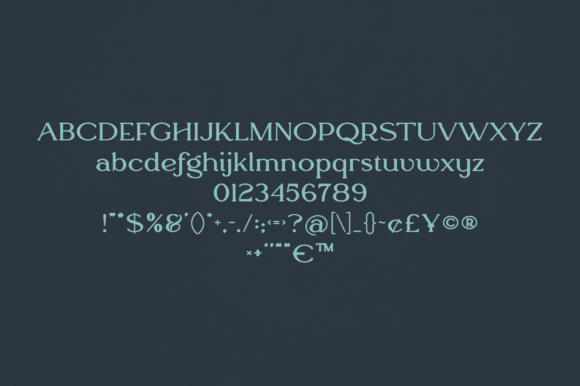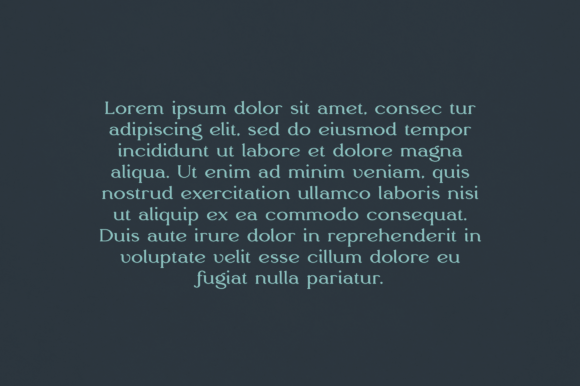
Introduction to Kai Font
Imagine you’re brainstorming ideas for a new branding project, and you stumble upon the perfect combination of elegance and sophistication. The words start flowing, and your creative juices are in overdrive. You envision a stunning logo, a beautifully crafted website, or a captivating social media post – and the right font is the missing piece of the puzzle. That’s where Kai Font comes in – a stylish and versatile serif font that will elevate your typography to new heights.
As a designer, you’re always on the lookout for the perfect design resource to give your projects a unique touch. Kai Font is more than just a font – it’s a game-changer. With its high-quality design and transparent background, you can use it for a wide range of creative projects, from product packaging to magazine headers. And the best part? It’s available for free download, making it an invaluable addition to your design toolkit.
Whether you’re a seasoned pro or just starting out, Kai Font is a valuable asset that will take your designs to the next level. Its versatility and elegance make it perfect for any creative project, and its free download option means you can experiment with it without breaking the bank. So why wait? Discover the magic of Kai Font and unlock your full creative potential.
Key Features of Kai Font
- Features a unique, modern design with clean lines and minimalist aesthetic, perfect for modern branding and graphic design.
Honest Review: Kai Font
I recently came across the Kai Font while searching for a new design resource for a creative project. I was impressed with the high quality and versatility of this font, making it perfect for various applications.
What works well: ✨ The Kai Font offers a unique and modern aesthetic that can elevate any design. It’s also available for free download, which is a major plus. Additionally, the font has a transparent background, making it easy to use on any background.
Here are some of its key features:
- Unique and modern aesthetic
- High quality and versatile
However, there are some limitations to consider: ⚠️ The font may not be suitable for all types of projects, particularly those requiring a more traditional or conservative look. Additionally, the font may not be as extensive as some other design resources.
Overall, I’m impressed with the Kai Font and would recommend it to designers looking for a modern and versatile font. With its high quality and transparent background, it’s a great addition to any design toolbox.
Kai Font
Overview
Kai Font is a versatile and elegant design resource, perfect for various creative projects. This high-quality font is available for free download, making it an ideal addition to your design arsenal.
Tips for Getting the Most Out of Kai Font
Use Kai Font with a transparent background to create stunning graphics and designs. Experiment with different font sizes and styles to add visual interest to your projects. You can also use Kai Font in combination with other design resources to create unique and eye-catching designs.
Kai Font is perfect for various creative projects, including:
– Social media graphics
– Presentations
– Documents
– Business cards
– Branding materials